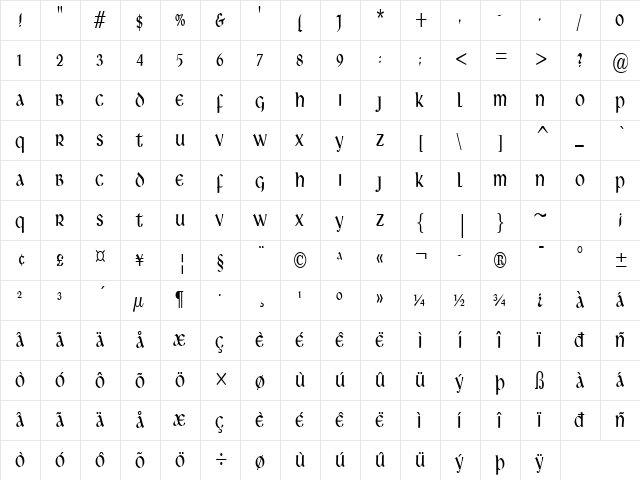
Leo Thin Normal
Design Context for Leo Thin Typeface
Leo Thin takes a measured approach to typography — its balanced proportions and neutral character make it a reliable workhorse for both digital and print work. Its slender proportions lend an understated elegance to any composition.
Pro Tip: Use Leo Thin in both headline and body roles to test its range before committing to a single application.